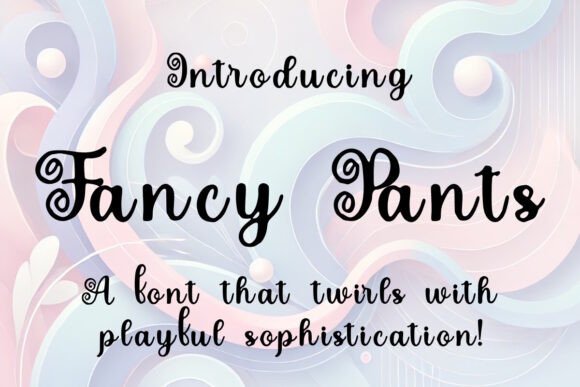
Fancy Pants Font: Elevate Your Designs with Elegance and Playfulness
In the world of typography, few fonts manage to strike a balance between elegance and playfulness. However, Fancy Pants Font is an exception. This delightful font is full of character and charm, making it an excellent choice for designers looking to add a touch of sophistication to their projects. With its swirling uppercase letters and smooth, flowing script, Fancy Pants Font is perfect for a wide range of applications, from logos and wedding invitations to eye-catching headlines and more.
Key Features of Fancy Pants Font
- Swirling Uppercase Letters: The font’s uppercase letters are designed with swirling elements that add a touch of elegance and sophistication.
- Smooth, Flowing Script: The script is smooth and flowing, making it perfect for creating beautiful, eye-catching headlines and titles.
- Unique Personality: Fancy Pants Font has a unique personality that sets it apart from other fonts, making it perfect for designers looking to add a touch of creativity to their projects.
- Playful Twist: Despite its elegant appearance, Fancy Pants Font has a playful twist that makes it perfect for designs that require a sense of fun and whimsy.
10 Creative Ways to Use Fancy Pants Font
- Logo Design: Use Fancy Pants Font to create a logo that exudes elegance and sophistication. The font’s unique personality makes it perfect for branding and identity design.
- Wedding Invitations: Add a touch of romance and whimsy to your wedding invitations with Fancy Pants Font. The font’s flowing script and swirling uppercase letters make it perfect for formal and informal wedding stationery.
- Headlines and Titles: Use Fancy Pants Font to create eye-catching headlines and titles for your blog posts, articles, and social media content.
- Packaging Design: Add a touch of elegance to your product packaging with Fancy Pants Font. The font’s unique personality makes it perfect for food, beauty, and lifestyle brands.
- Social Media Graphics: Use Fancy Pants Font to create engaging social media graphics that stand out from the crowd.
- Event Branding: Use Fancy Pants Font to create event branding materials, such as flyers, posters, and banners.
- Stationery and Printables: Add a touch of whimsy to your stationery and printables, such as notebooks, journals, and planners.
- Web Design: Use Fancy Pants Font to add a touch of elegance to your website design. The font’s smooth, flowing script makes it perfect for web headers and titles.
- Advertising: Use Fancy Pants Font to create eye-catching advertisements that grab attention and leave a lasting impression.
- Gift Tags and Labels: Add a touch of personality to your gift tags and labels with Fancy Pants Font. The font’s playful twist makes it perfect for gift wrapping and DIY projects.
Typography Tips for Using Fancy Pants Font
- Pair with Neutral Fonts: Pair Fancy Pants Font with neutral fonts, such as Arial or Helvetica, to create a balanced and harmonious design.
- Use for Headlines: Use Fancy Pants Font for headlines and titles, and a simpler font for body text.
- Experiment with Colors: Experiment with different colors to find the perfect combination that complements your design.
- Pay Attention to Spacing: Pay attention to spacing and kerning to ensure that your text is easy to read and visually appealing.
10 Fonts that Pair Well with Fancy Pants Font
- Arial: A classic sans-serif font that pairs well with Fancy Pants Font.
- Helvetica: A clean and simple font that complements Fancy Pants Font.
- Times New Roman: A traditional serif font that pairs well with Fancy Pants Font.
- Calibri: A modern sans-serif font that pairs well with Fancy Pants Font.
- Georgia: A classic serif font that complements Fancy Pants Font.
- Verdana: A clean and simple font that pairs well with Fancy Pants Font.
- Comic Sans: A playful font that pairs surprisingly well with Fancy Pants Font.
- Impact: A bold and dramatic font that pairs well with Fancy Pants Font.
- Lucida Console: A monospaced font that pairs well with Fancy Pants Font.
- Trebuchet MS: A clean and simple font that complements Fancy Pants Font.
In conclusion, Fancy Pants Font is a delightful font that adds a touch of elegance and playfulness to any design project. With its swirling uppercase letters and smooth, flowing script, this font is perfect for a wide range of applications, from logos and wedding invitations to eye-catching headlines and more. By following the typography tips and font pairing suggestions outlined in this article, you can create beautiful and effective designs that showcase the unique personality of Fancy Pants Font.